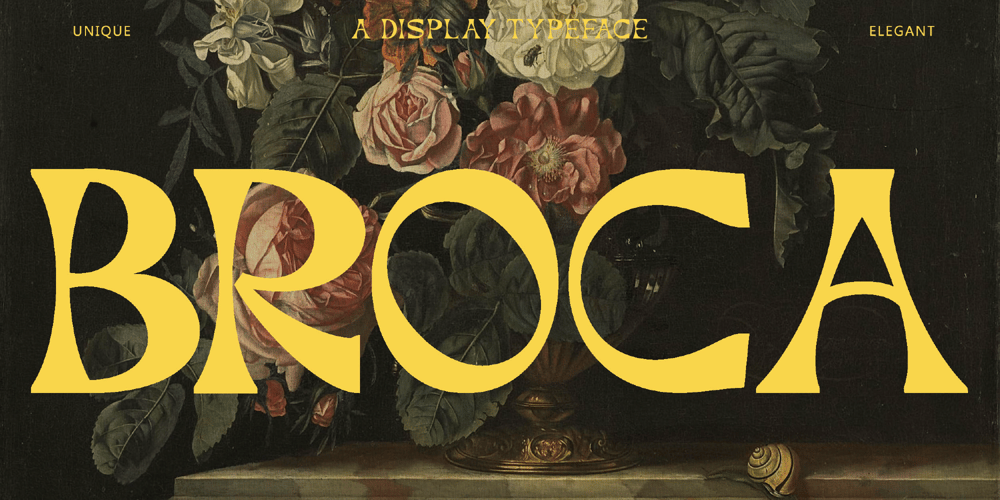
Broca Font Family was designed by Achmad Yani and published by Flawlessandco. Broca contains 1 styles and family package options. Broca is a Modern Retrotype with various connected letters, an updated blend of bohemian style.An Original typeface that suitable for any graphic designs such as branding materials, t-shirt, print, business cards, logo, poster, t-shirt, photography, quotes .etcThis font support for some multilingual. Display Typeface that contains uppercase A-Z and lowercase a-z, alternate character, numbers 0-9, and some punctuation.If you need help, just write me! Thanks so much for checking out my shop!